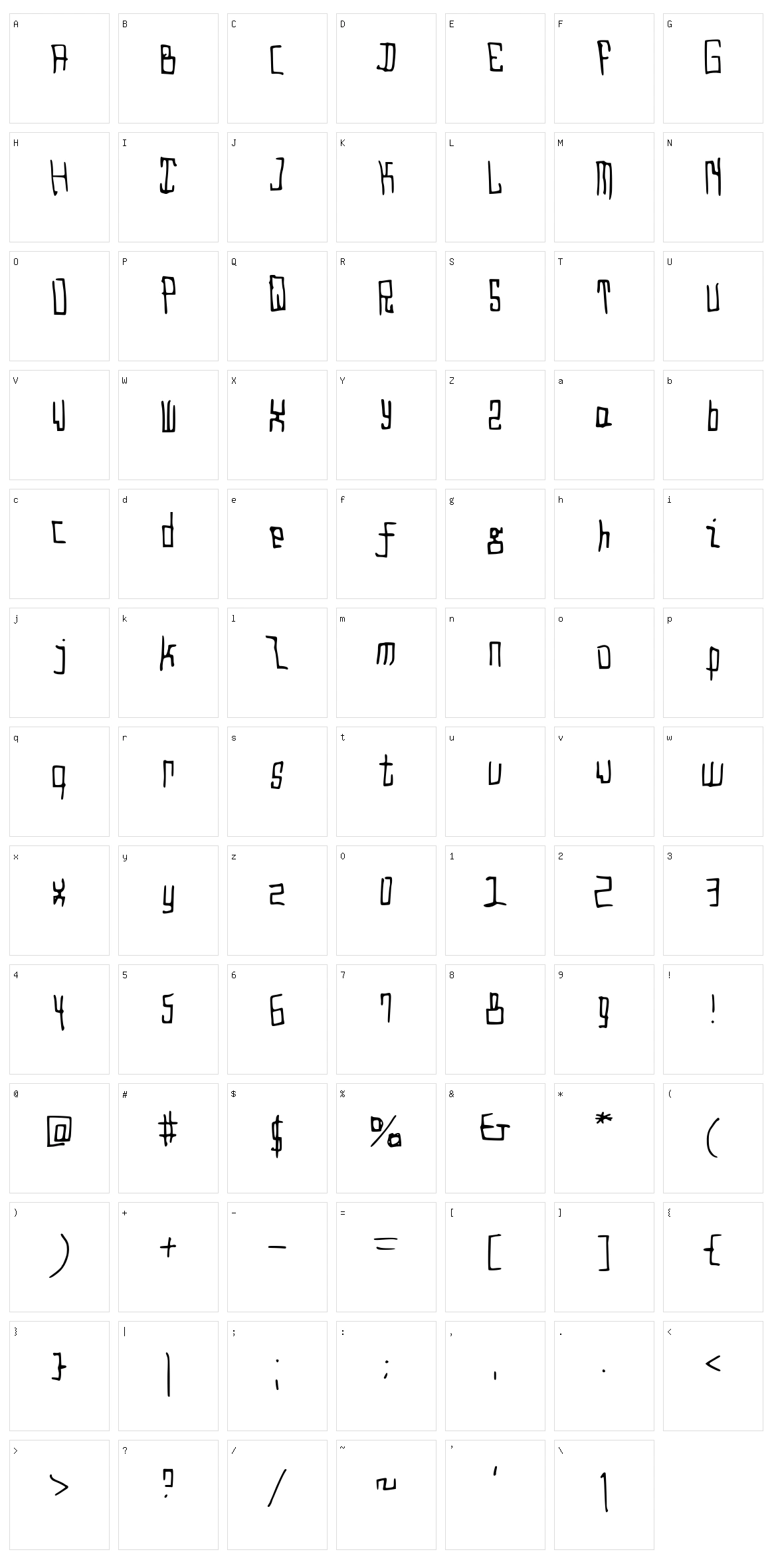
The free font Droido is carefully designed by Winter Design Studio, showcasing a thoughtful balance of creativity and usability and falls under the Cartoon font style. When you download the ZIP file, it contains only 18.22 KB of font files, making it lightweight and quick to download. Please review the license details below to understand permitted usage and distribution rights. If license information is not available, we recommend using this font for personal projects only or contacting the author directly for commercial usage permissions.